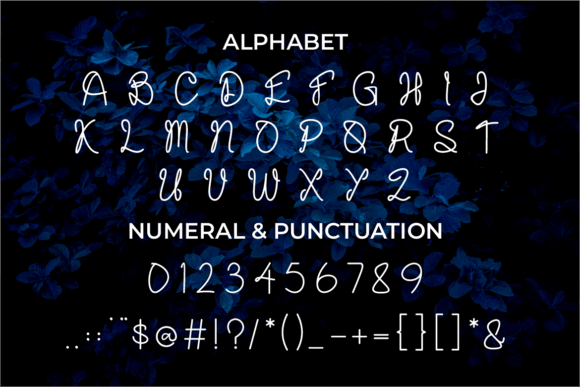
Introduction to Shachrist Font
Shachrist is a fun and friendly handwritten font.
Whether youโre using it for crafting, digital designing, presentations or greeting cards making, itโs perfect .
Key Features of Shachrist Font
Why Choose Shachrist Font?
Shachrist Font offers exceptional quality and versatility, making it a valuable addition to your design toolkit. Whether you’re creating for personal projects or commercial use, Shachrist Font delivers professional results.